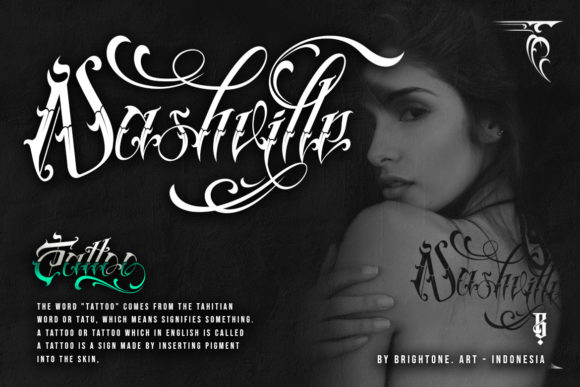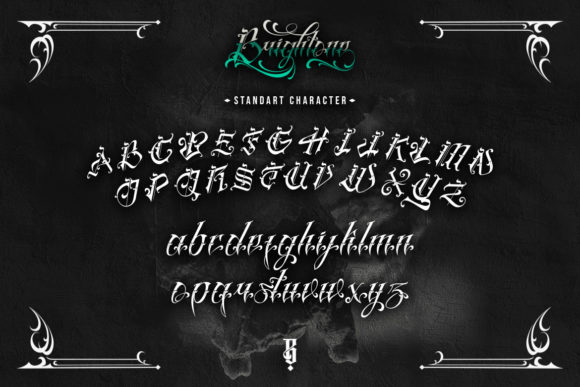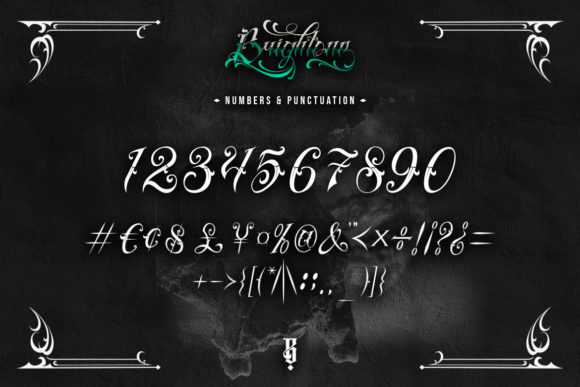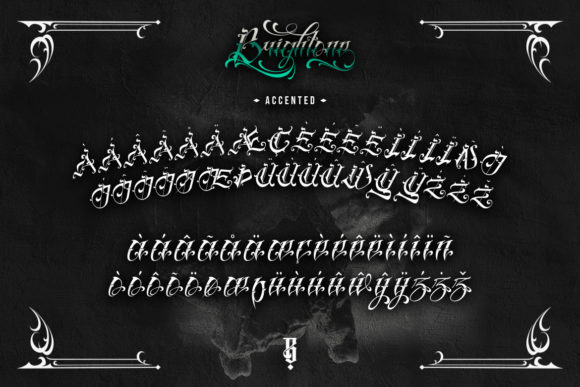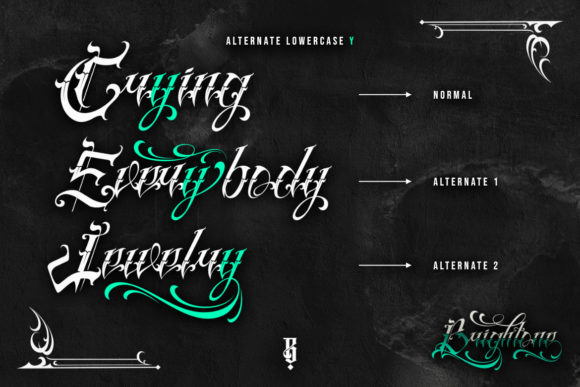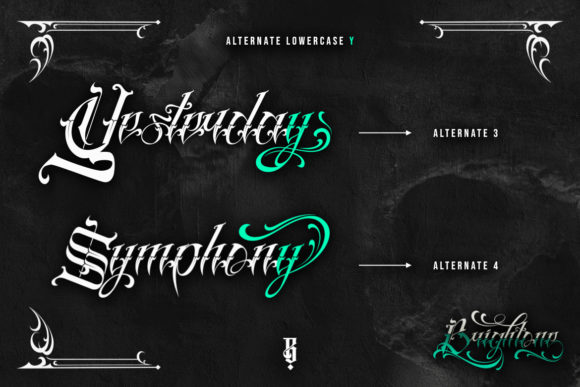
Introducing Brightone Font: A Bold and Distinct Blackletter Font
Are you looking for a font that makes a statement? Do you want to add an assertive touch to your designs, labels, or branding? Look no further than Brightone Font, a bold and distinct blackletter font that’s perfect for a variety of creative projects. In this article, we’ll explore the features and benefits of Brightone Font, and show you how it can elevate your designs to the next level.
What is Brightone Font?
Brightone Font is a bold and striking blackletter font that’s designed to make an impact. Its unique and distinctive style is perfect for adding a touch of edginess to your designs, and its versatility makes it suitable for a wide range of applications. Whether you’re working on a label, branding project, tattoo design, or any other creative endeavor, Brightone Font is sure to turn heads.
Key Features of Brightone Font
• Bold and Distinct Style: Brightone Font features a bold and distinct blackletter style that’s sure to grab attention.
• PUA Encoded: Brightone Font is PUA (Private Use Area) encoded, which means you can access all of the glyphs and swashes with ease.
• Versatile: Brightone Font is perfect for a variety of creative projects, including labels, branding, tattoo designs, and more.
• Easily Accessible Glyphs and Swashes: With PUA encoding, you can easily access all of the glyphs and swashes, making it simple to customize your designs.
Use Cases for Brightone Font
Brightone Font is a versatile font that can be used in a variety of creative projects. Here are some examples of how you can use Brightone Font:
• Labels and Packaging: Brightone Font is perfect for creating bold and eye-catching labels and packaging.
• Branding and Logo Design: Brightone Font can be used to create unique and memorable branding and logos.
• Tattoo Designs: Brightone Font is a popular choice for tattoo designs, thanks to its bold and striking style.
• Advertising and Marketing: Brightone Font can be used to create bold and attention-grabbing advertising and marketing materials.
Benefits of Using Brightone Font
There are many benefits to using Brightone Font in your creative projects. Here are a few:
• Adds an Assertive Touch: Brightone Font adds a bold and assertive touch to your designs, making them stand out from the crowd.
• Increases Versatility: Brightone Font can be used in a variety of creative projects, making it a versatile addition to your font library.
• Easy to Use: Brightone Font is PUA encoded, making it easy to access all of the glyphs and swashes.
• Unique and Memorable: Brightone Font is a unique and memorable font that’s sure to leave a lasting impression.
Tips for Using Brightone Font
Here are a few tips for using Brightone Font in your creative projects:
• Use it Boldly: Brightone Font is a bold font, so don’t be afraid to use it boldly and make a statement.
• Experiment with Different Sizes: Brightone Font looks great in a variety of sizes, so experiment with different sizes to find the one that works best for your project.
• Pair it with Other Fonts: Brightone Font can be paired with other fonts to create a unique and interesting contrast.
• Have Fun: Most importantly, have fun and be creative with Brightone Font!
Brightone Font is a bold and distinct blackletter font that’s perfect for adding an assertive touch to your designs. With its PUA encoding, versatile style, and ease of use, Brightone Font is a great addition to any font library. Whether you’re a designer, crafter, or simply someone who loves to create, Brightone Font is sure to inspire and elevate your creative projects. So why wait? Download Brightone Font today and start creating!